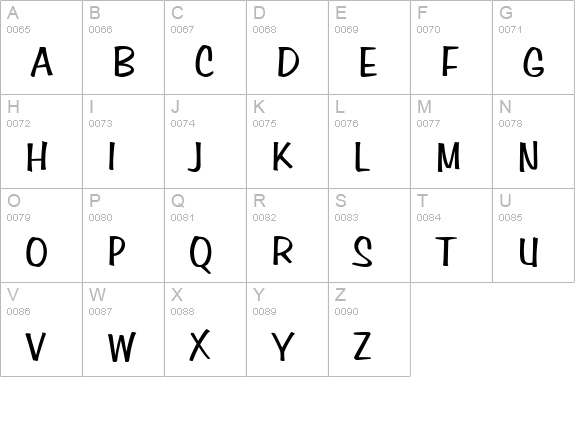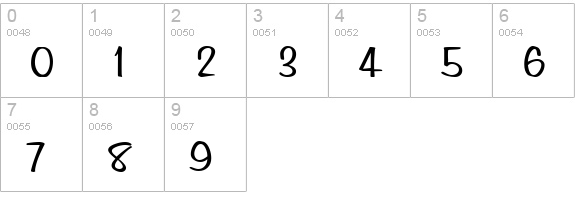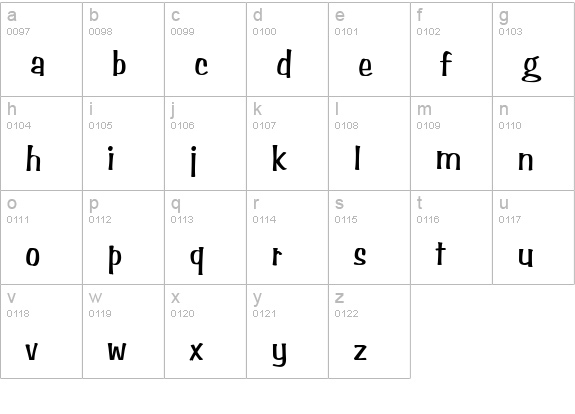
Benguiat Frisky Font Details
Benguiat Frisky font is a playful and energetic typeface that exudes a sense of whimsy and charm. Its quirky letterforms and distinctive serifs make it a unique choice for a variety of design projects. The font's bold strokes and subtle curves give it a dynamic and lively appearance, making it perfect for adding a touch of fun to any design. What makes Benguiat Frisky font even more appealing is that it is available for free download at FontsMarket.com. This means that you can easily access this delightful font and use it in your projects without any cost. Whether you're working on a poster, logo, or branding materials, Benguiat Frisky font is sure to make your designs stand out with its playful and engaging style. Download it now and let your creativity run wild with this charming and free typeface.